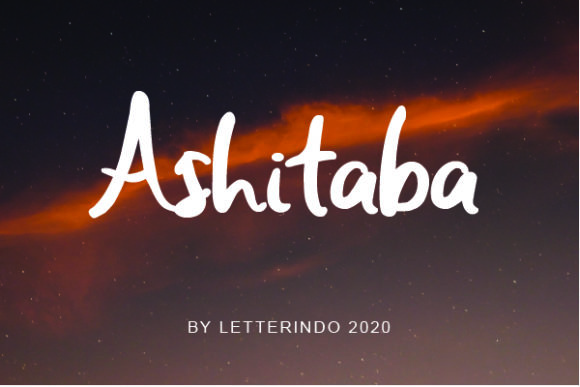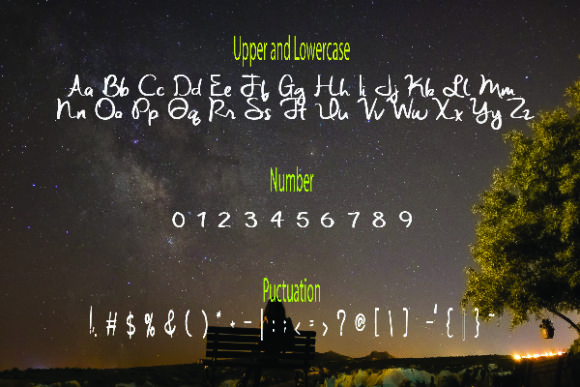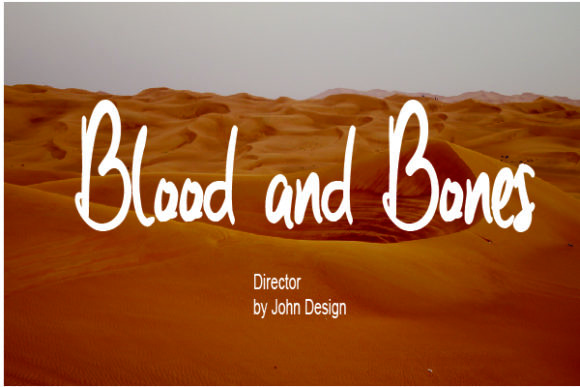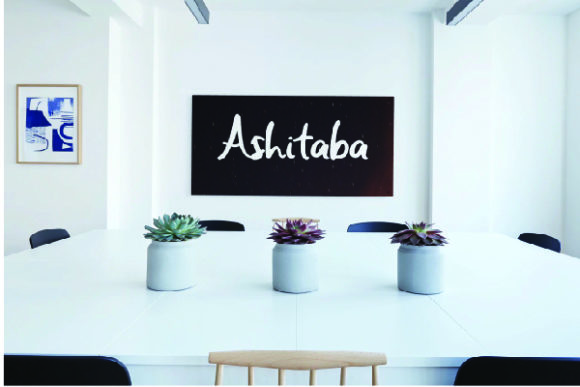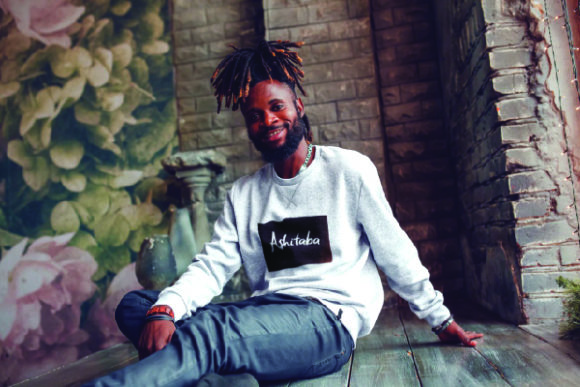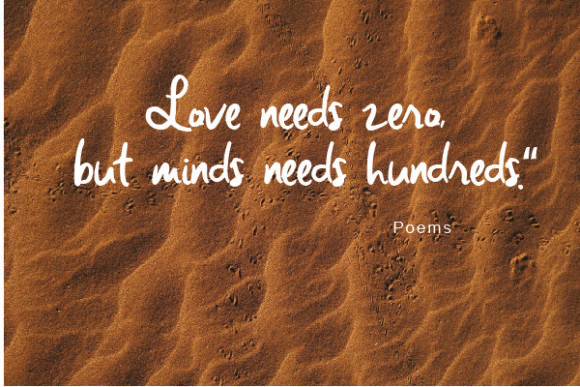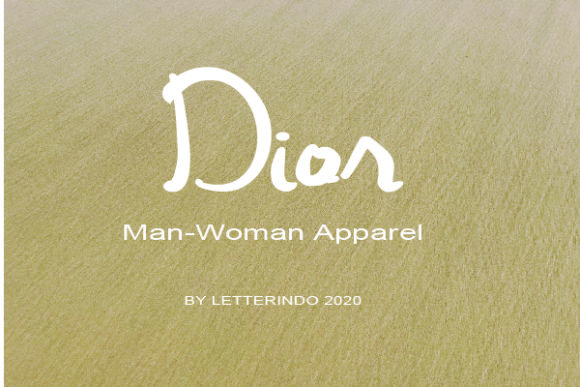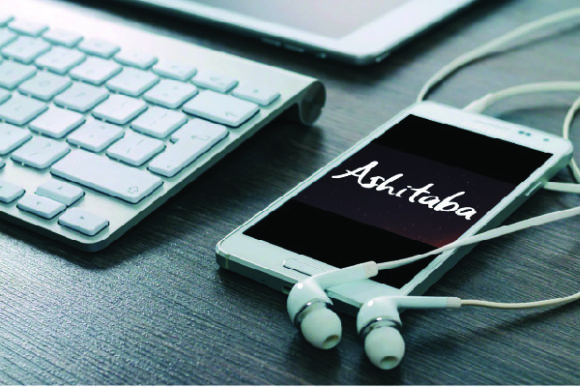
Ashitaba Font
About Ashitaba Font
Ashitaba is a lovely and sweet handwritten font. It maintains its classy calligraphic influences while feeling contemporary and incredibly friendly. Fall in love with Ashitaba and bring your projects to the highest levels!